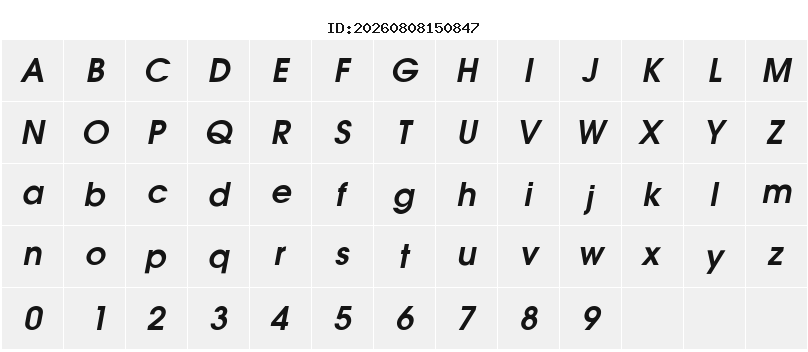
Poet Preview
• Font Name: Poet
• Full Font Name: Poet
• PostScript Name: AvantGarde-DemiOblique
About Poet.ttf
Poet.ttf is a modern, elegant sans-serif font designed for ultimate readability and visual harmony. Perfect for branding, headlines, web design, and print materials.